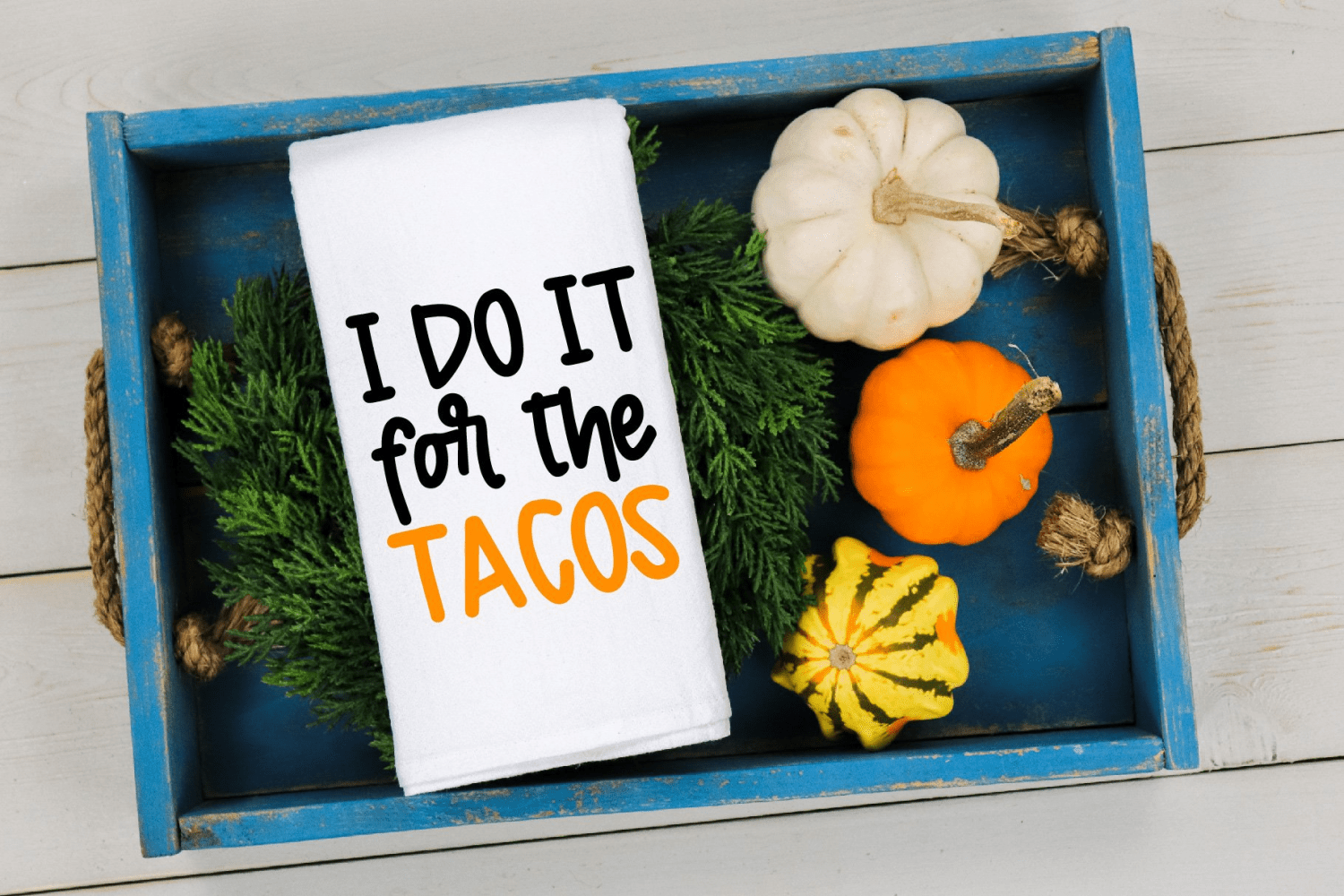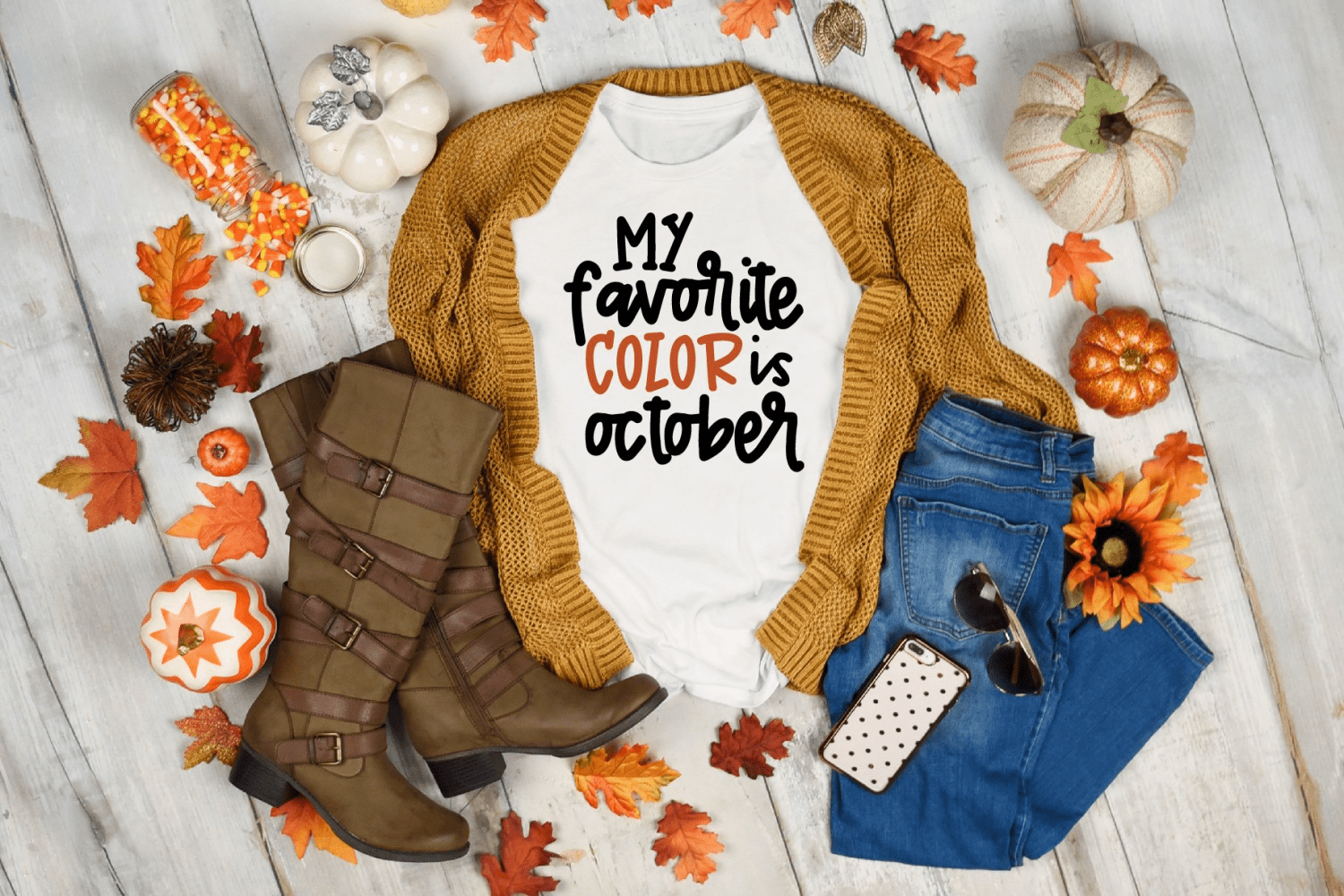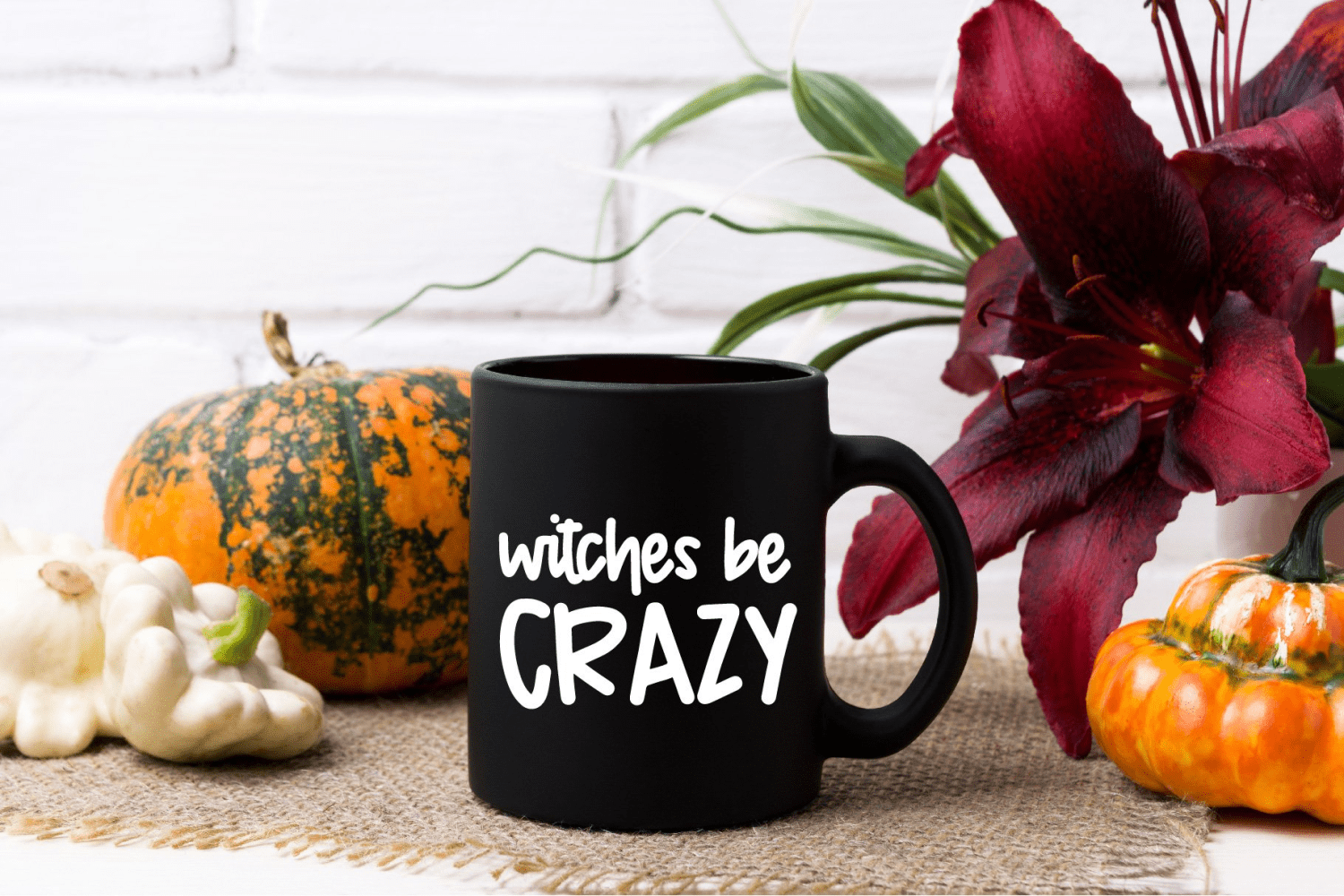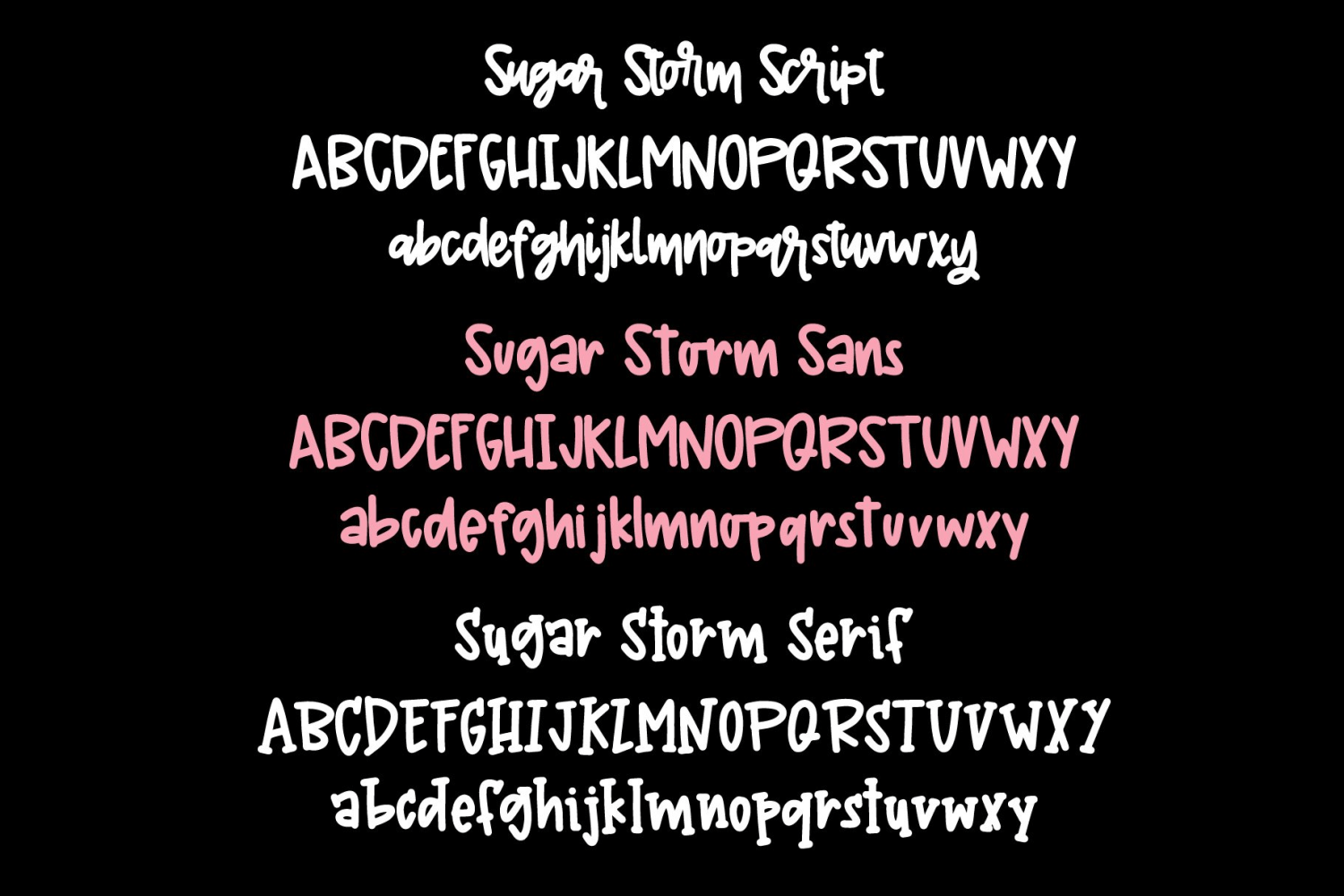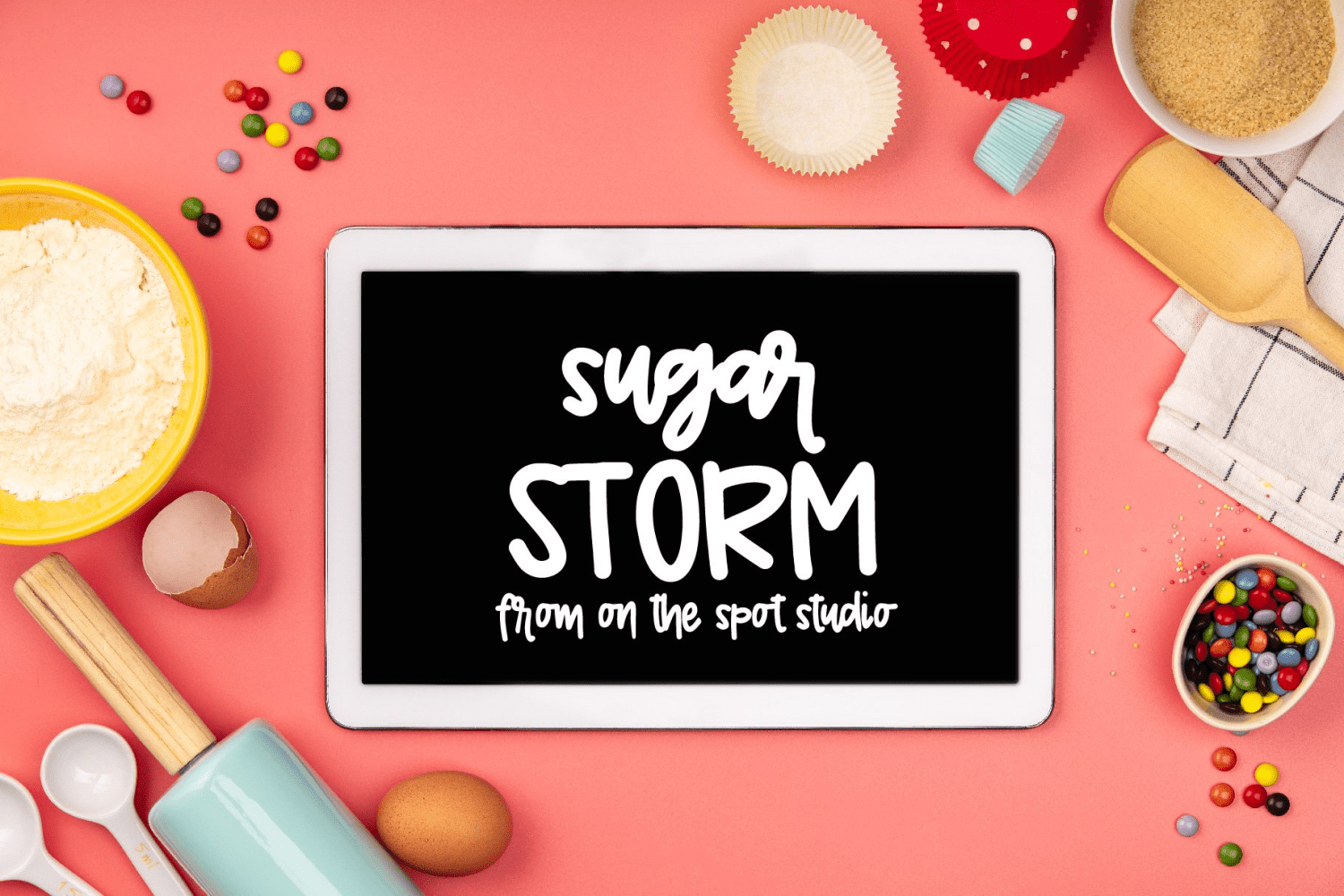
Sugar Storm
About Sugar Storm
Sugar Storm is a three font family that includes script, sans and serif fonts. Great for tee designs and more! Nice and bold for cutting machines to work with.